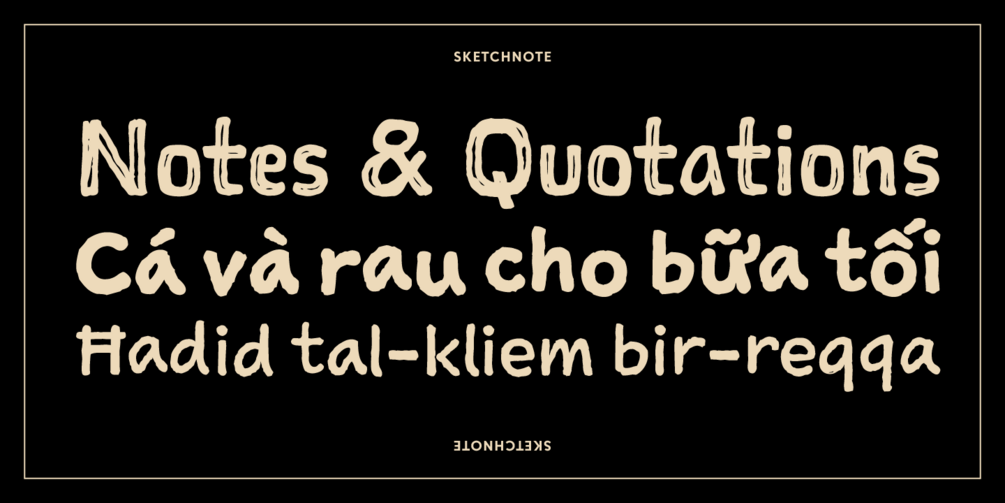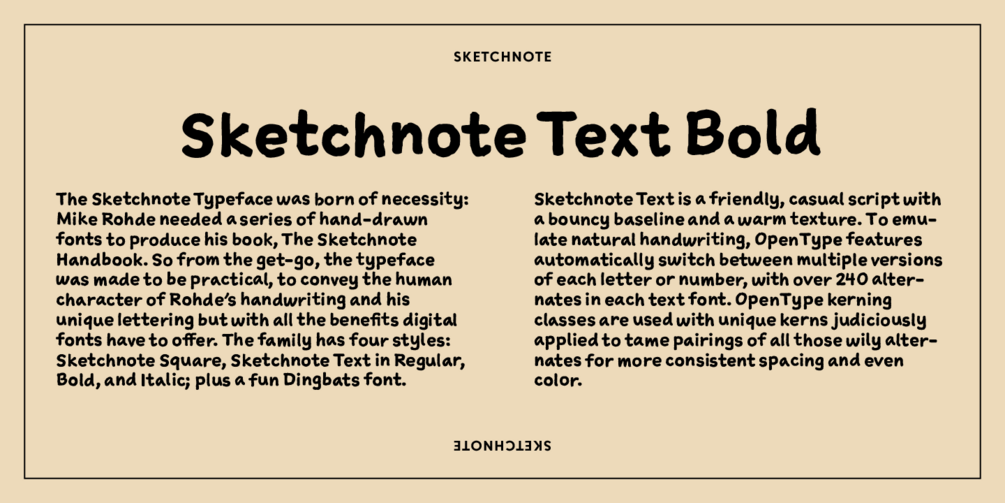
The Sketchnote Typeface is a fun and clever handwritten, hand-drawn type family designed by Mike Rohde, the celebrated author of “The Sketchnote Handbook” (Peachpit Press).
As a part of the family of fonts, Sketchnote Text Bold is a friendly, casual script with a bouncy baseline, a warm texture, and multiple alternates of characters that make for a more natural, handwritten appearance. Sketchnote Text Bold can fulfill the demands of a variety of design projects where a handcrafted aesthetic and ease-of-use is desired.